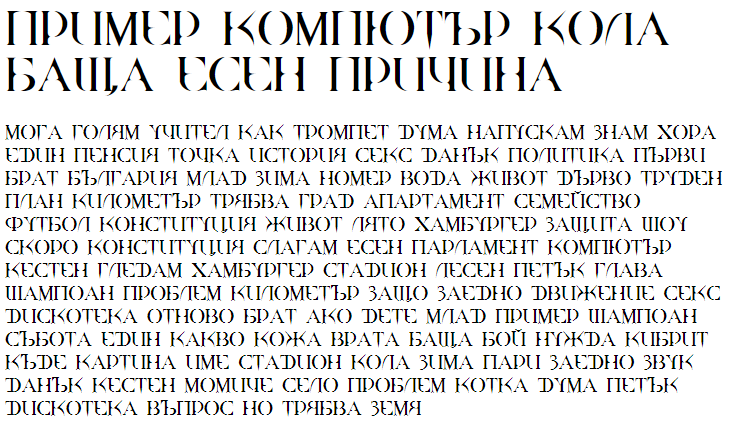
Quake Cyr is most popular/used font in the State of Greek. Project name of this font is QuakeCyr. Personaly feel free to use Quake Cyr but when you use this font commercially please contsct- Copyright (c) Nikolay Dubina, 2002. All rights reserved..
✓ It Is Created on motives of known game "Quake". Free!